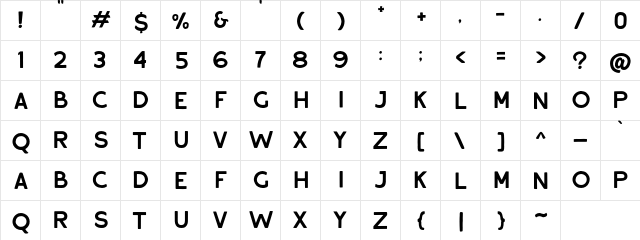
Reliva Sans DEMO Regular
| Foundry | Papercrown std |
| Designer | Gustian Agung Asprilla |
Design Context for Reliva Sans DEMO Typeface
Reliva Sans DEMO takes a measured approach to typography — its balanced proportions and neutral character make it a reliable workhorse for both digital and print work.